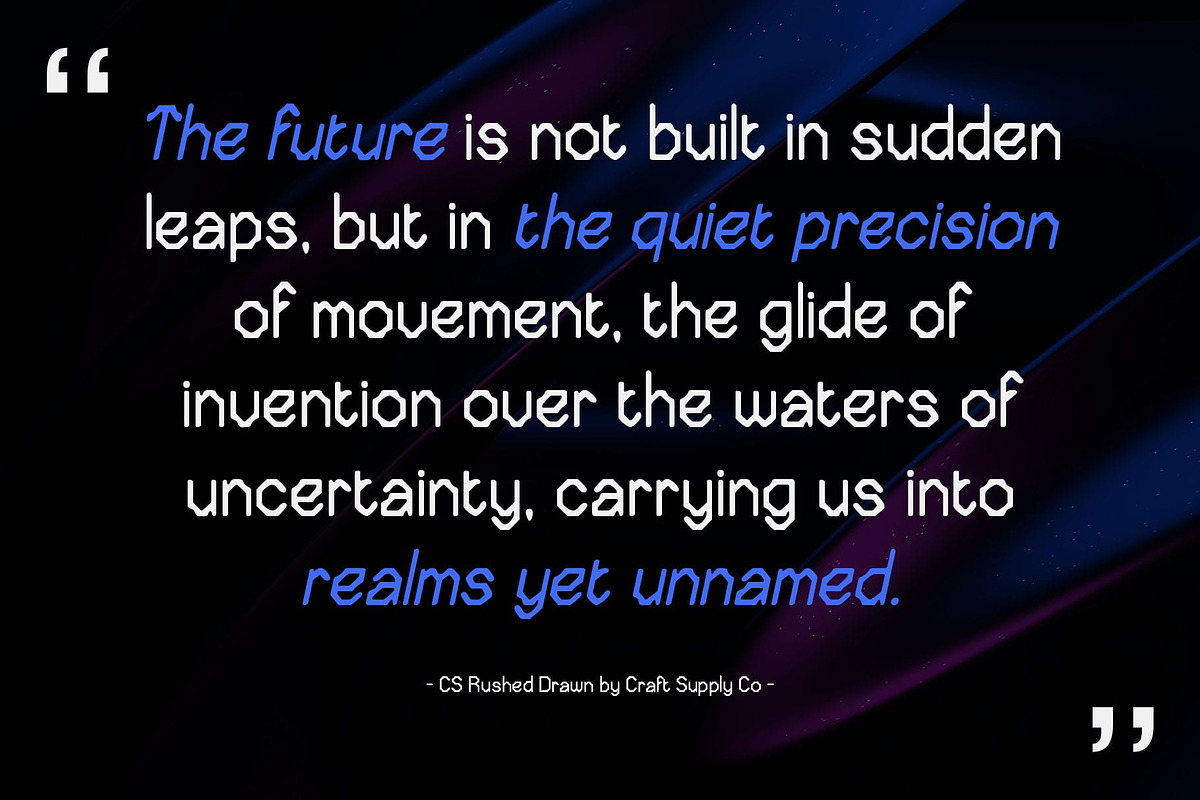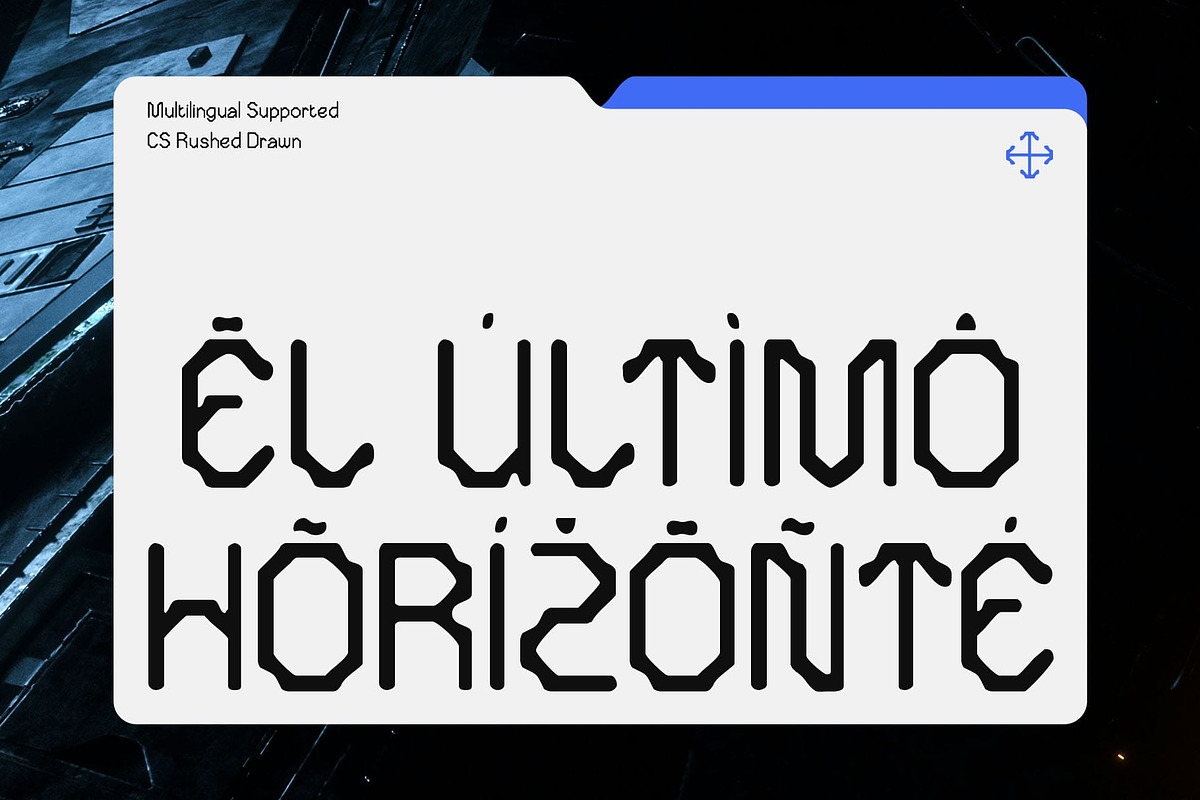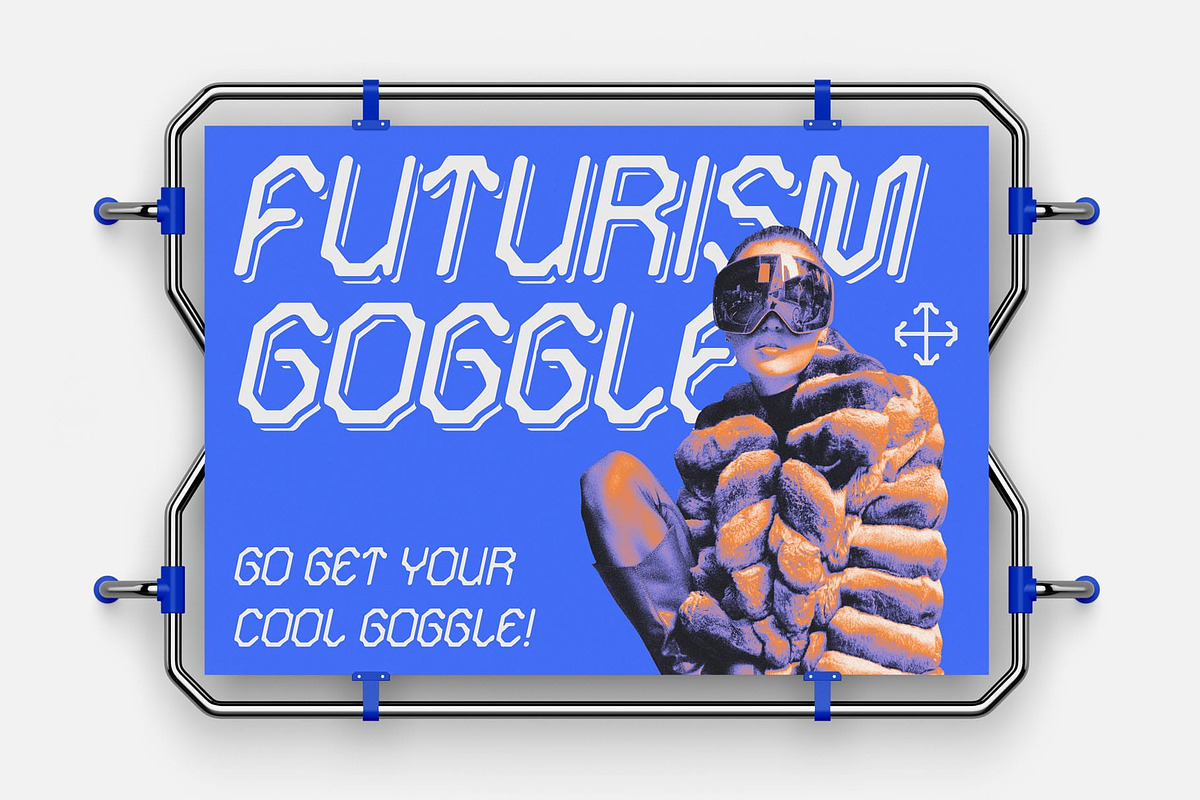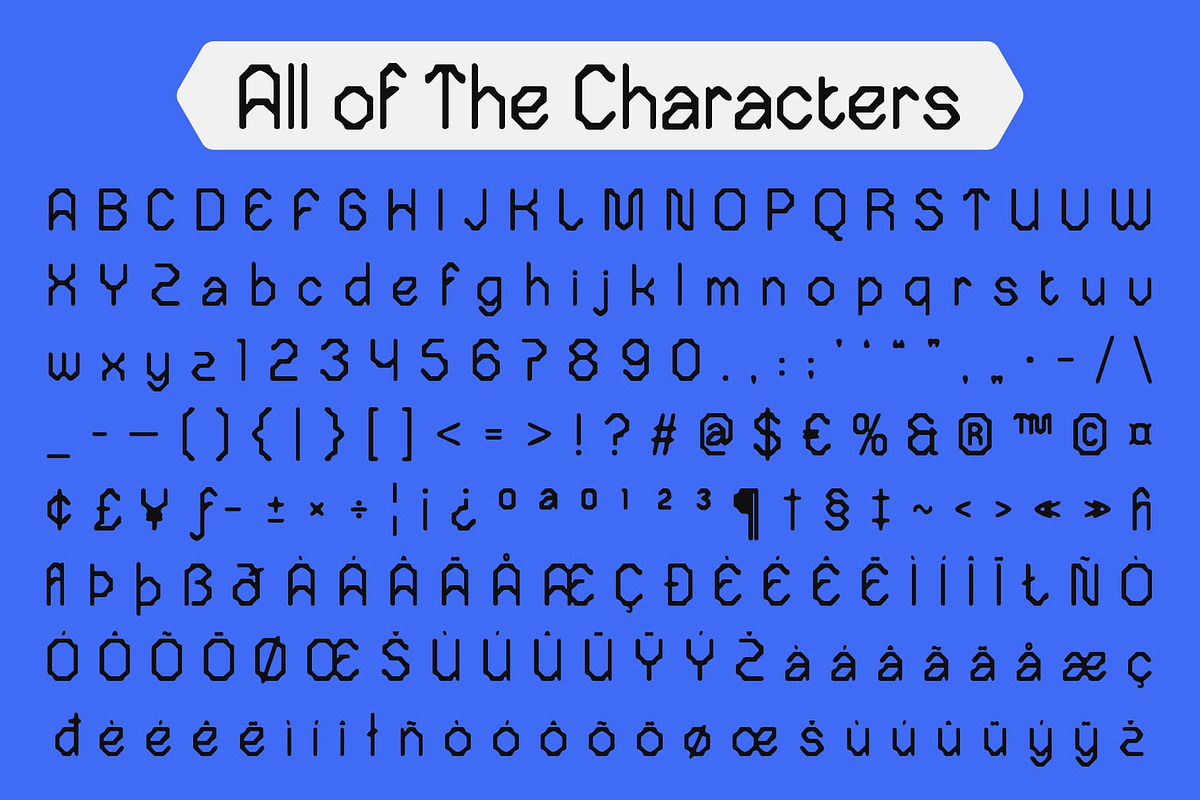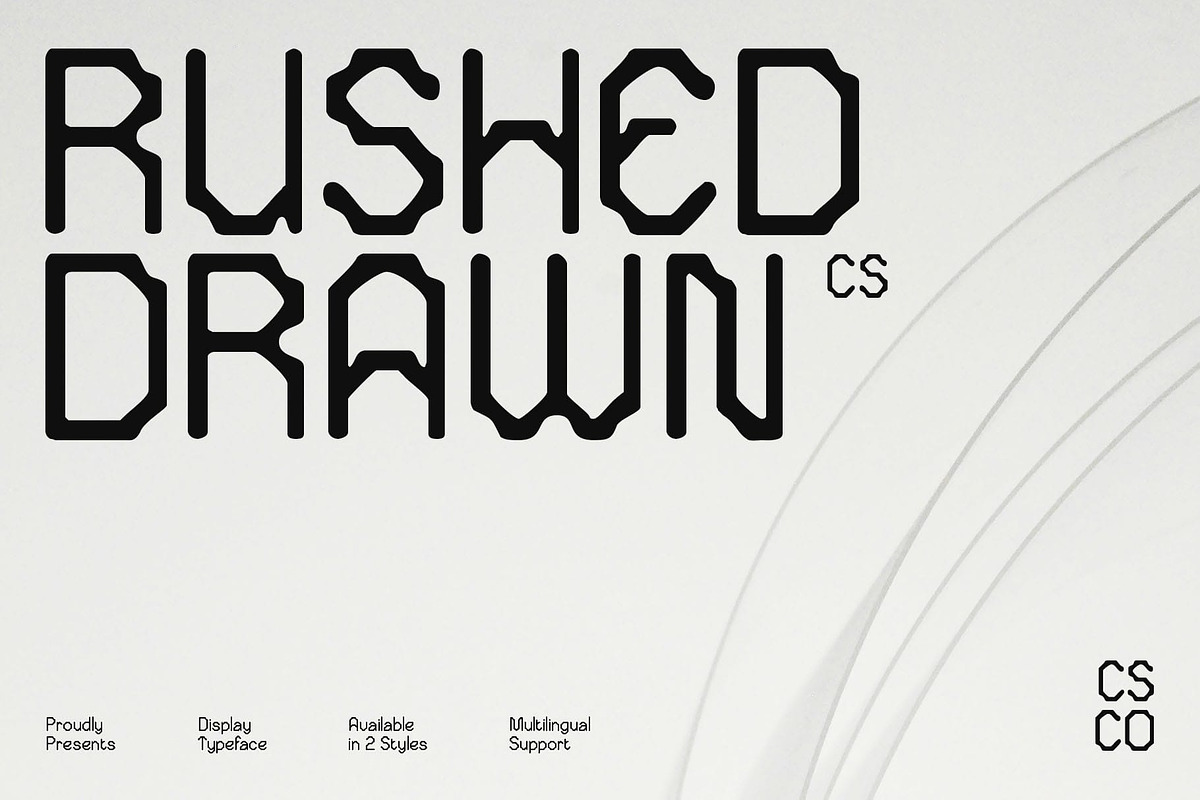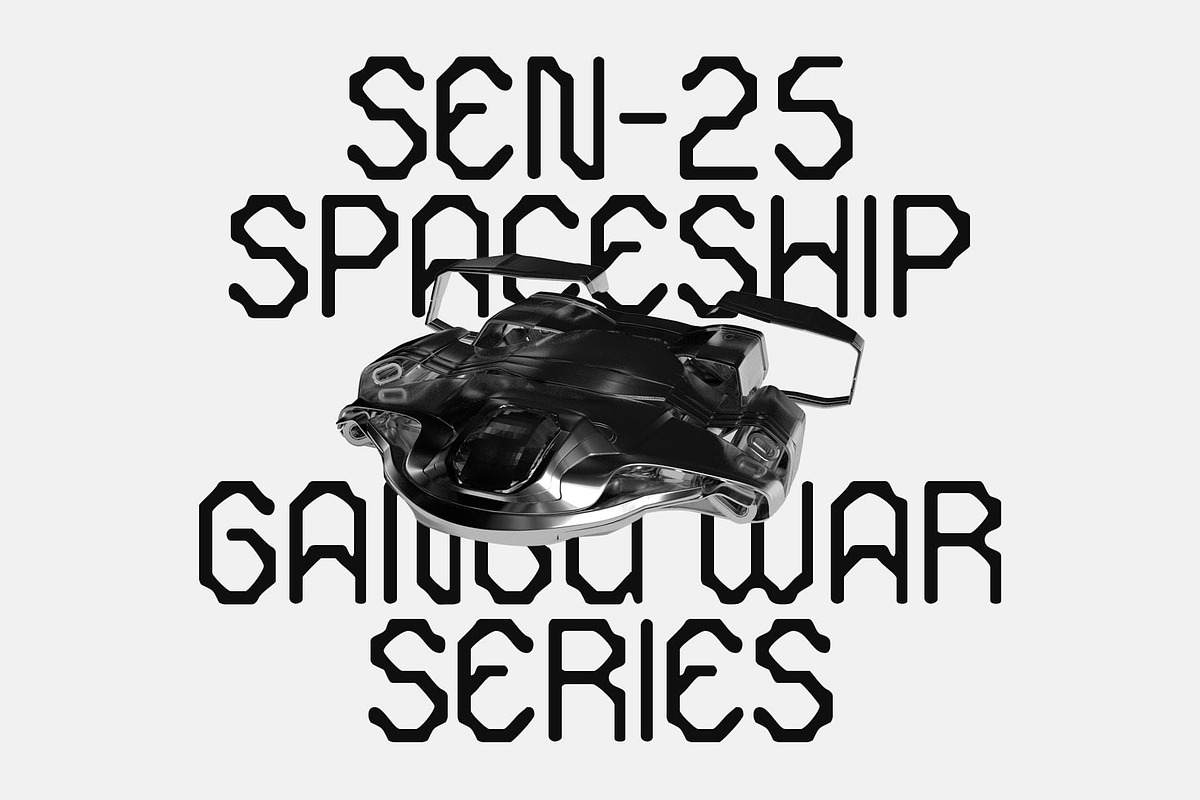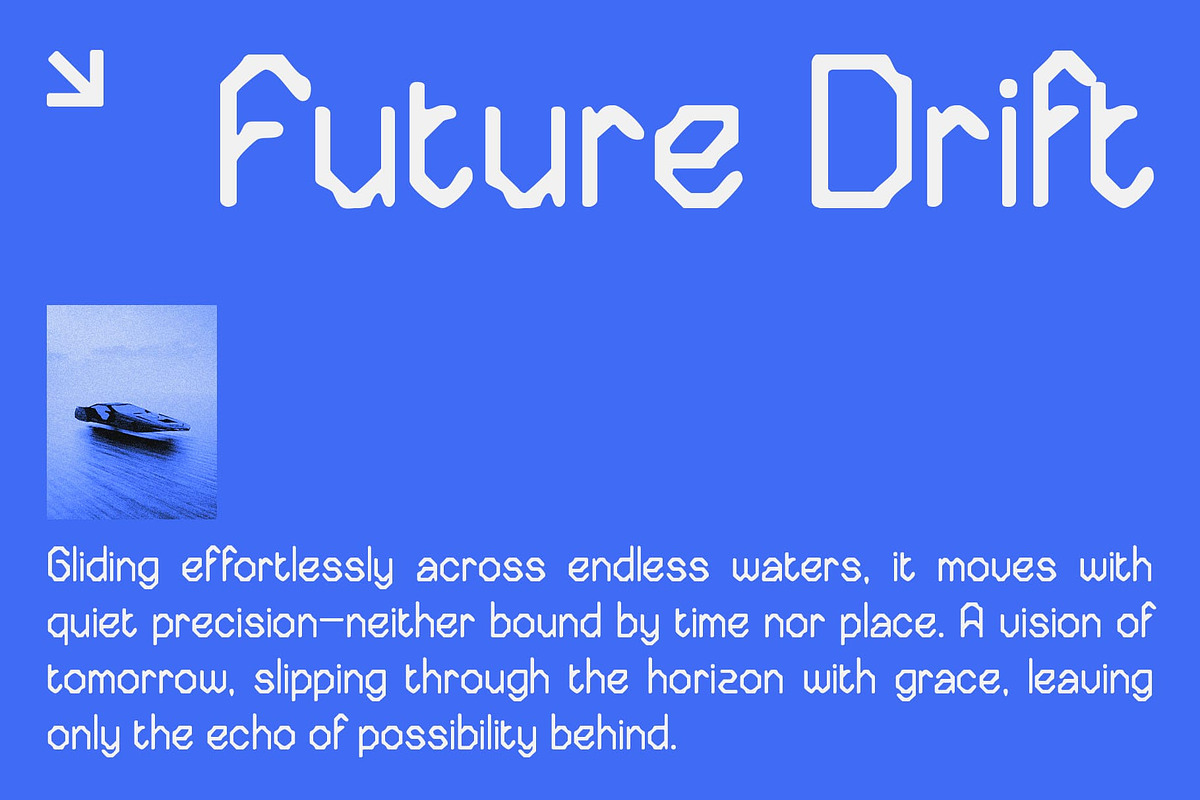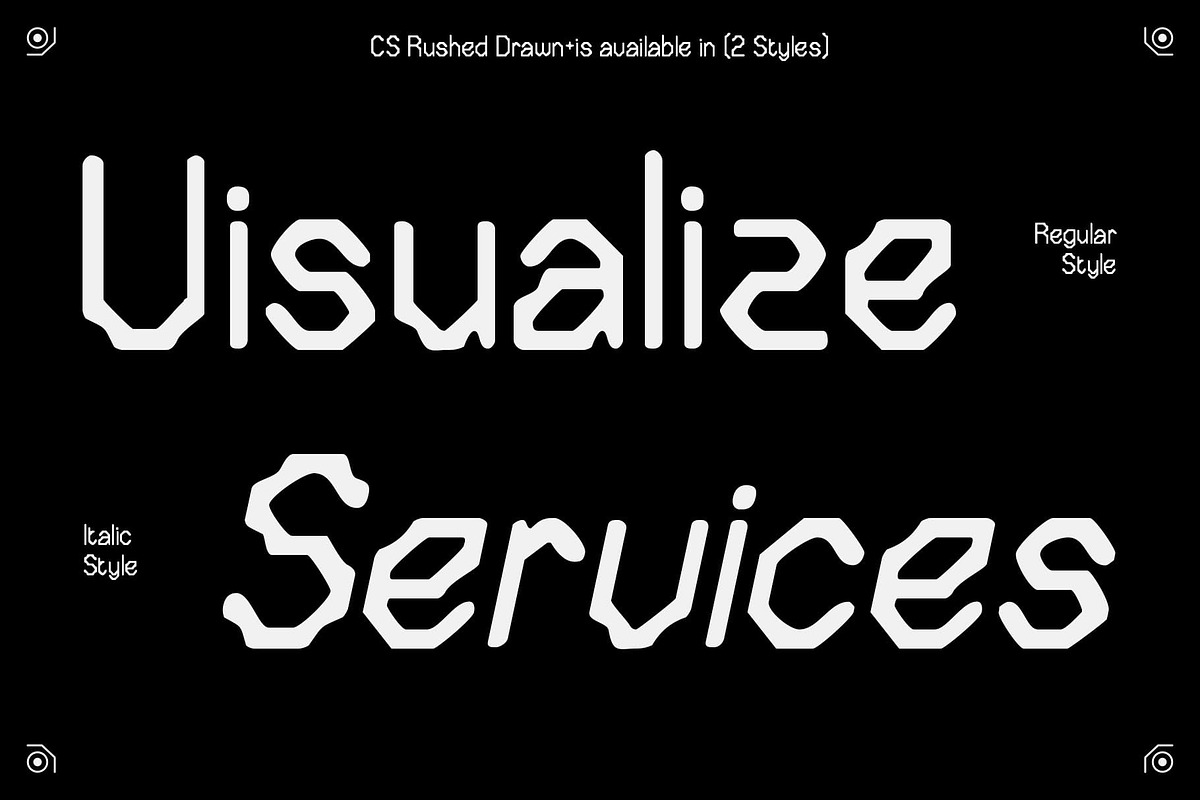
CS Rushed Drawn
CS Rushed Drawn – Techno Meets Handcrafted Style: Techno Display Font with Drawn Handwriting Texture
A Unique Take on Techno Fonts CS Rushed Drawn reimagines the classic techno font by blending bold, futuristic structure with a relaxed, hand-drawn texture. While techno fonts are typically defined by sharp precision and clean lines, this font introduces an organic, manual touch that makes it stand out. The result is a typeface that feels modern yet approachable.
Handwriting-Infused Design The drawn effect of CS Rushed Drawn softens its techno backbone, giving the impression of irregular strokes that mimic handwriting. This texture creates depth and individuality, breaking away from the rigid perfection of digital type. Each letter feels expressive, adding character to your design while still maintaining readability.
Futuristic Yet Relaxed Despite its handcrafted look, CS Rushed Drawn retains a futuristic essence. Its geometric structure ensures it aligns with tech-driven aesthetics, while the drawn style brings in a relaxed, almost experimental vibe. This duality makes the font versatile enough to move between serious tech branding and creative editorial use.
Perfect for Bold Creative Projects CS Rushed Drawn is an ideal choice for designers who want to balance innovation with individuality. From technology branding to digital posters, gaming visuals, or experimental layouts, this font captures both the strength of techno design and the charm of handmade imperfection. It’s futuristic, creative, and undeniably unique.